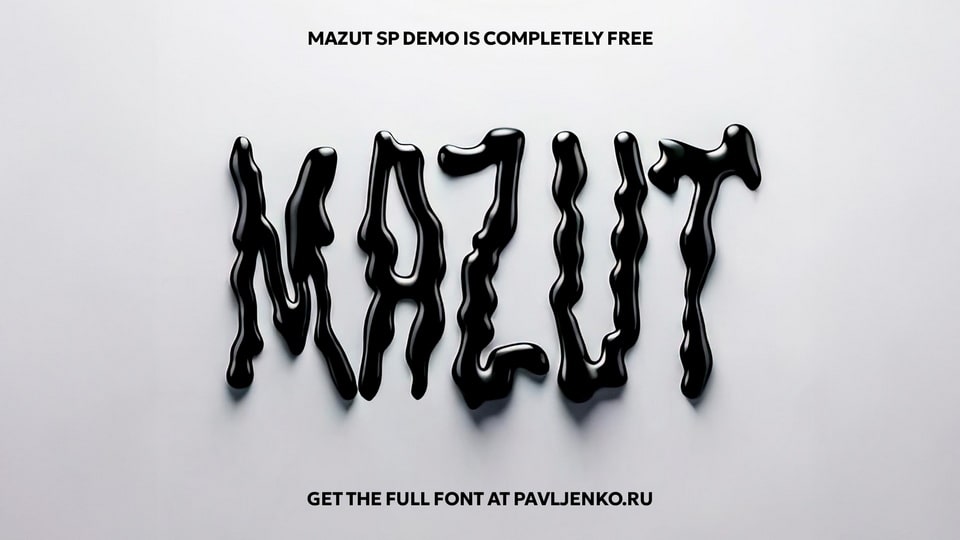
Download Mazut SP font, a decorative wavy hand-crafted typeface with letters shaped like fluid blobs of fuel oil, giving it a bold and unconventional look.
Designer: Sasha Pavljenko